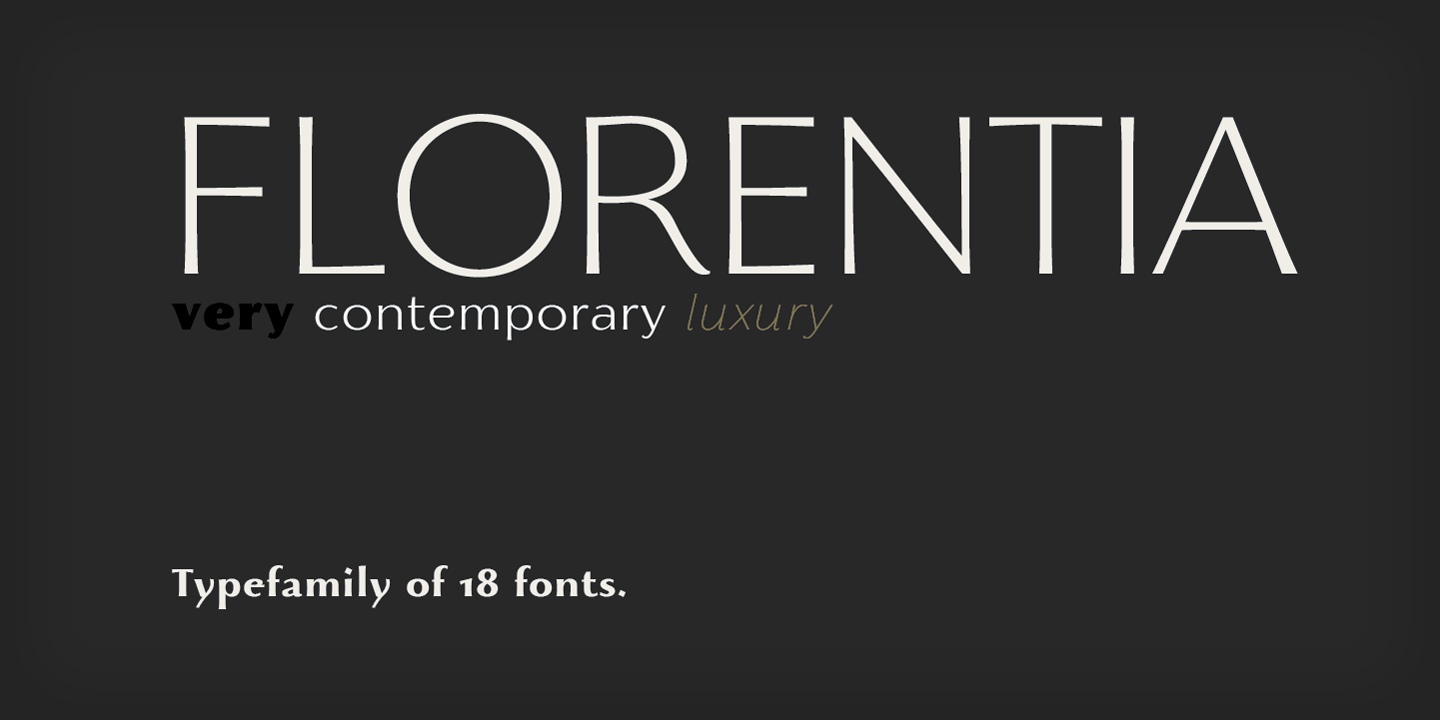
Florentia Font
Florentia Font is ideal for Italian restaurant branding, Renaissance art exhibitions, classical music programs, luxury fashion magazines, wine label designs, historical museum displays, fine art galleries, elegant wedding invitations, cultural festival posters, and sophisticated travel brochures.
What makes Florentia Font so exciting is its exquisite capture of Renaissance elegance and the timeless beauty of Italian artistic heritage. This sophisticated typeface features graceful, flowing letterforms with classical proportions and refined decorative elements that immediately evoke the cultural richness of Florence and the golden age of European art. The font's elegant construction and artistic sensibility create an instant sense of cultural sophistication and intellectual refinement, making it perfect for projects that need to convey artistic excellence, historical significance, and the enduring appeal of classical beauty.
The Florentia Font family typically includes multiple weights and ornamental styles, often featuring regular, italic, and decorative variations. Renaissance-inspired font collections frequently offer additional flourishes, swash characters, and period-appropriate ornaments that enhance the authentic classical aesthetic and provide designers with comprehensive typographic options for creating culturally rich compositions.
The artistic heritage of Florentia Font makes it particularly valuable for cultural institutions, luxury brands, and educational organizations where conveying sophistication and historical awareness is essential for credibility. Cultural marketers and museum curators will find this font especially effective for materials requiring scholarly legitimacy and artistic appreciation.
What sets Florentia Font apart is its ability to bridge centuries of artistic tradition with contemporary design sensibilities. This unique characteristic makes it suitable for both historical recreations and modern interpretations that honor classical aesthetics while meeting current communication needs.
Professional designers recognize that Florentia Font brings invaluable cultural dimension to projects across industries including hospitality, education, luxury goods, and cultural preservation. Its artistic character and Renaissance appeal make it essential for projects requiring genuine cultural sophistication and historical authenticity.
The meticulous attention to classical detail in Florentia Font ensures faithful representation of Renaissance artistic principles while delivering the technical excellence that contemporary design applications demand.